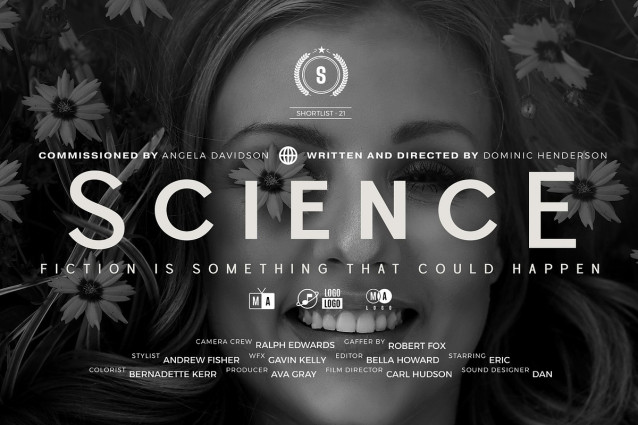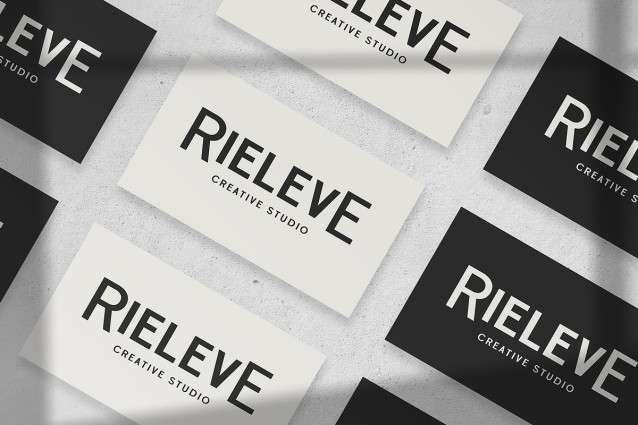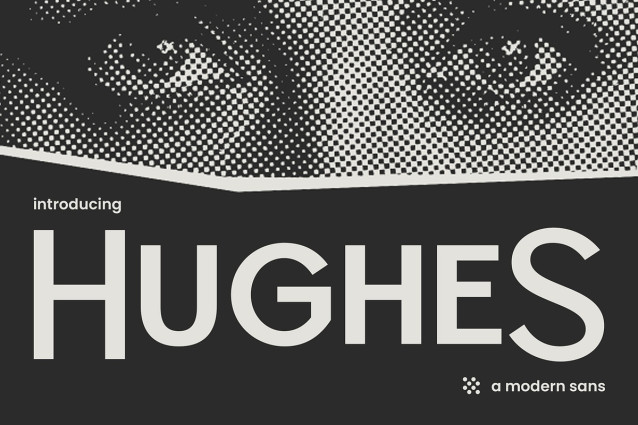
Hughes Font
Hughes Font is a modern, elegant and simple font, best used as a display for headings, logos, branding, magazines, product packaging and invitations.